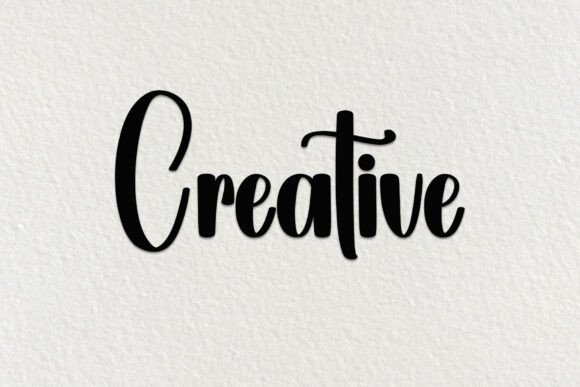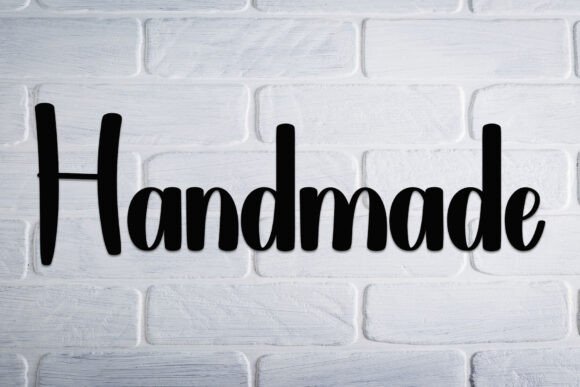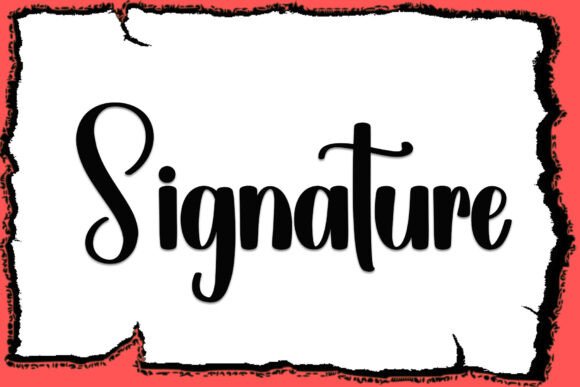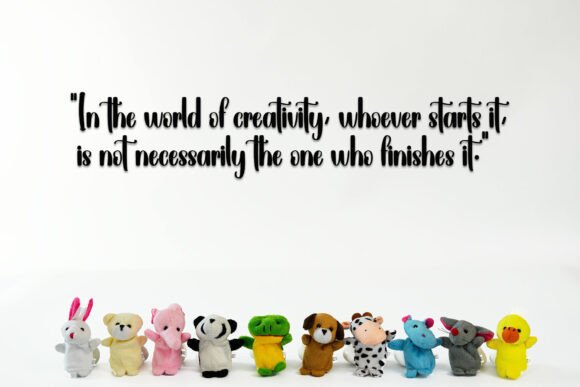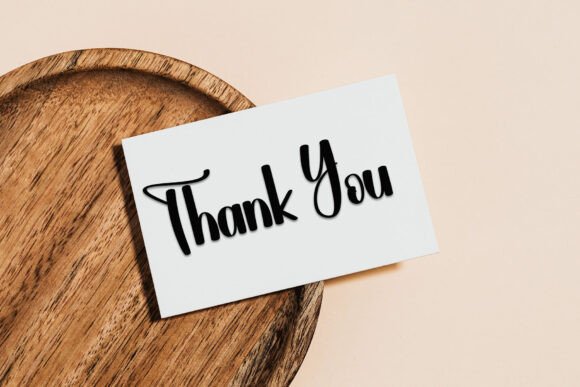
Introduction to Mixed Notes Font
As a designer, have you ever been in a rush to complete a creative project, only to realize that the perfect font is missing? The blank page stares back at you, and the deadline looms near. But what if I told you that there’s a font that can add a touch of magic to your design, making it stand out in a crowded space? Enter the Mixed Notes Font, a sweet and cursive handwritten font that’s about to become your new best friend.
With its gentle, elegant touch, the Mixed Notes Font is perfect for adding a romantic and joyful vibe to your designs. Whether you’re working on a branding project, a wedding invitation, or a marketing campaign, this font is sure to impress. And the best part? It’s available for free download, making it a valuable resource for designers of all levels.
Mixed Notes Font
- Unique handwritten font style with a touch of elegance, perfect for creative projects and design resources.
- High-quality font with transparent background, allowing for seamless integration with any design or background.
- Features a wide range of characters, including uppercase and lowercase letters, numbers, and punctuation marks.
- Comes in a single weight, ideal for use in headings, titles, and other design elements where a bold, eye-catching font is needed.
- Designed to work well at various font sizes and resolutions, making it a versatile design resource for both digital and print projects.
- Perfect for designers, artists, and writers looking for a unique and creative font to add a personal touch to their work.
Honest Review: Mixed Notes Font
As a designer, I’m always on the lookout for unique and high-quality design resources to enhance my creative projects. Recently, I stumbled upon the Mixed Notes Font, and I’m excited to share my honest review with you.
What works well: ✨ The Mixed Notes Font is incredibly versatile, making it perfect for a wide range of creative projects. Its elegant and modern design makes it suitable for both digital and print media. The font also features a transparent background, allowing for seamless integration with various design elements. I particularly appreciate the free download option, which makes it easily accessible to designers of all levels.
- Perfect for digital and print media
Limitations: ⚠️ While the Mixed Notes Font is an excellent addition to any designer’s toolkit, it may not be suitable for projects requiring a more formal or traditional tone. Additionally, some users may find the font’s irregularities slightly distracting.
Overall impression: The Mixed Notes Font is a fantastic design resource that adds a touch of creativity and elegance to any project. Its high-quality design, versatility, and free download option make it a must-have for designers looking to elevate their work. While it may have some limitations, I highly recommend giving it a try and experimenting with its unique features.
Mixed Notes Font
Getting the Most Out of Mixed Notes Font
For tips on getting the most out of the Mixed Notes Font, try experimenting with different font sizes, colors, and styles. You can also use it in combination with other design elements to create a unique and eye-catching design.
The Mixed Notes Font is commonly used in creative projects, such as designing a brochure, flyer, or poster. It’s also great for creating a design resource, such as a logo or icon, with a high-quality font.